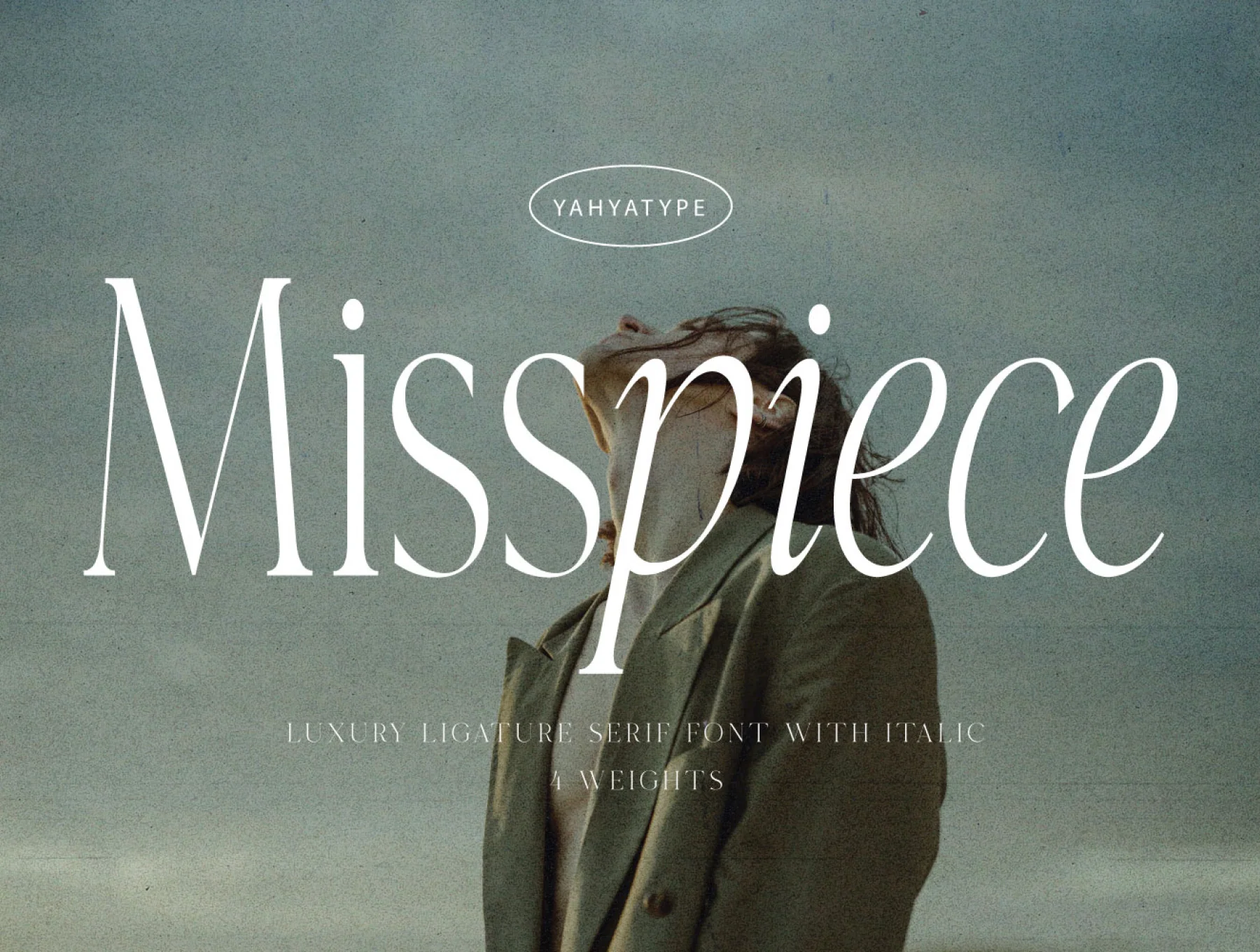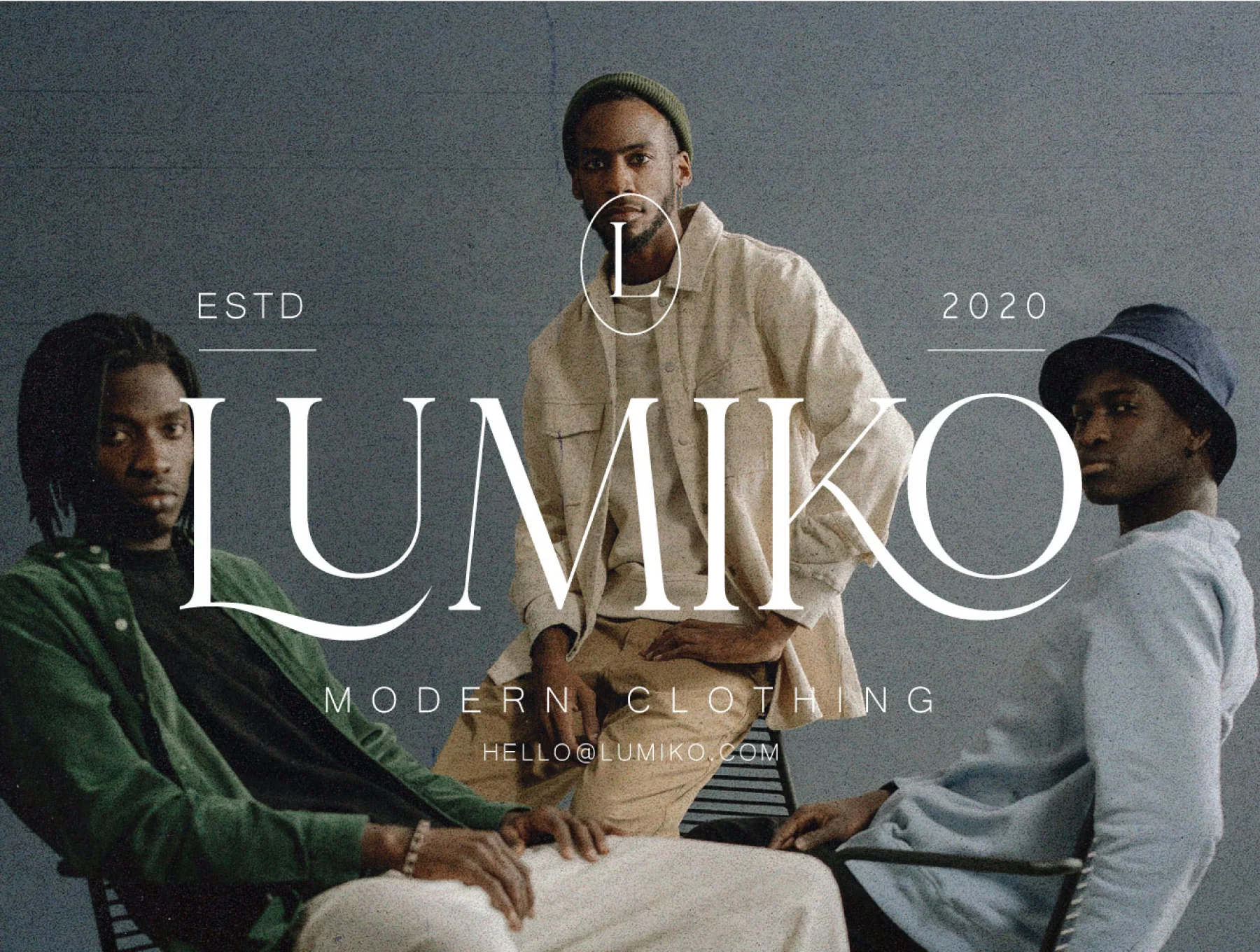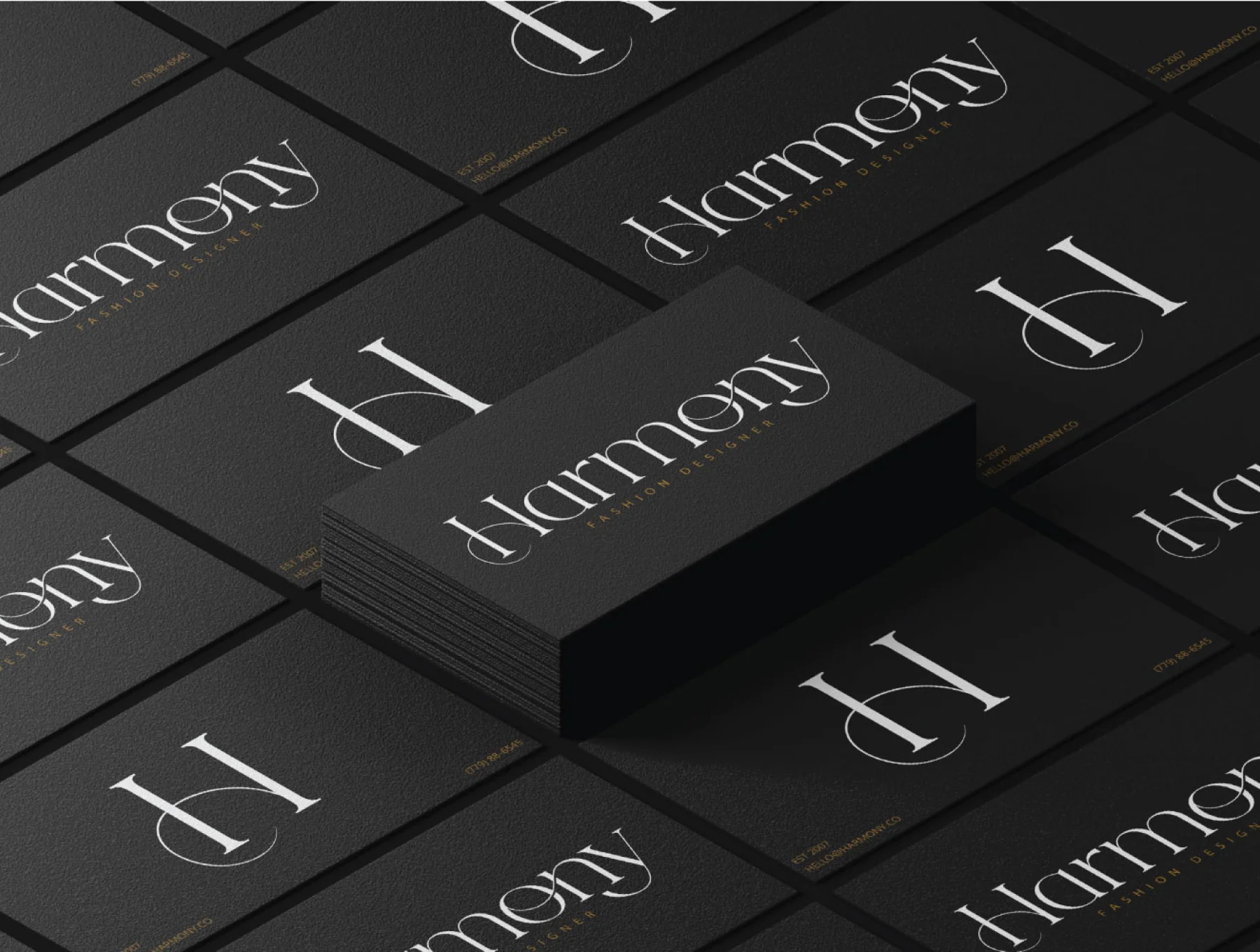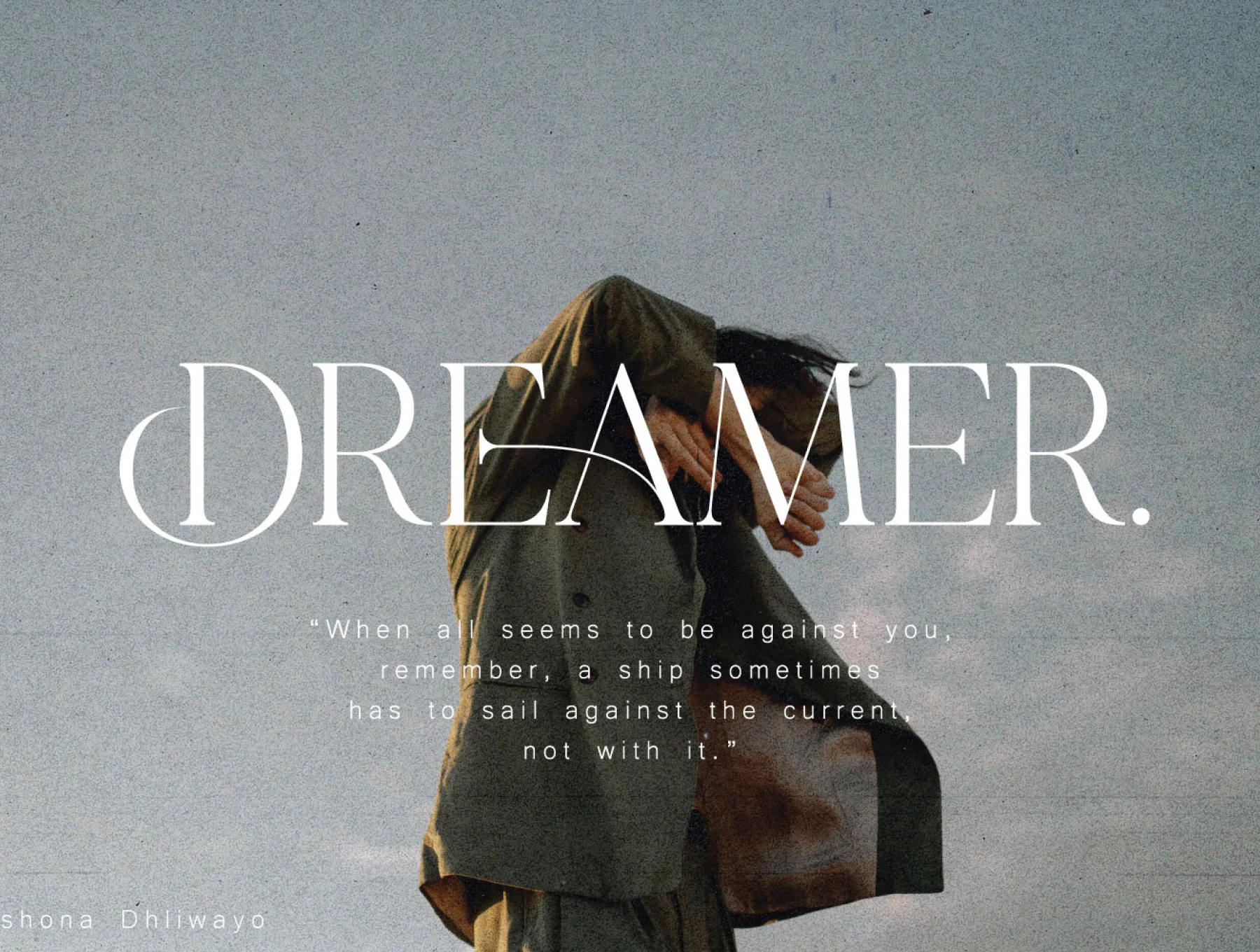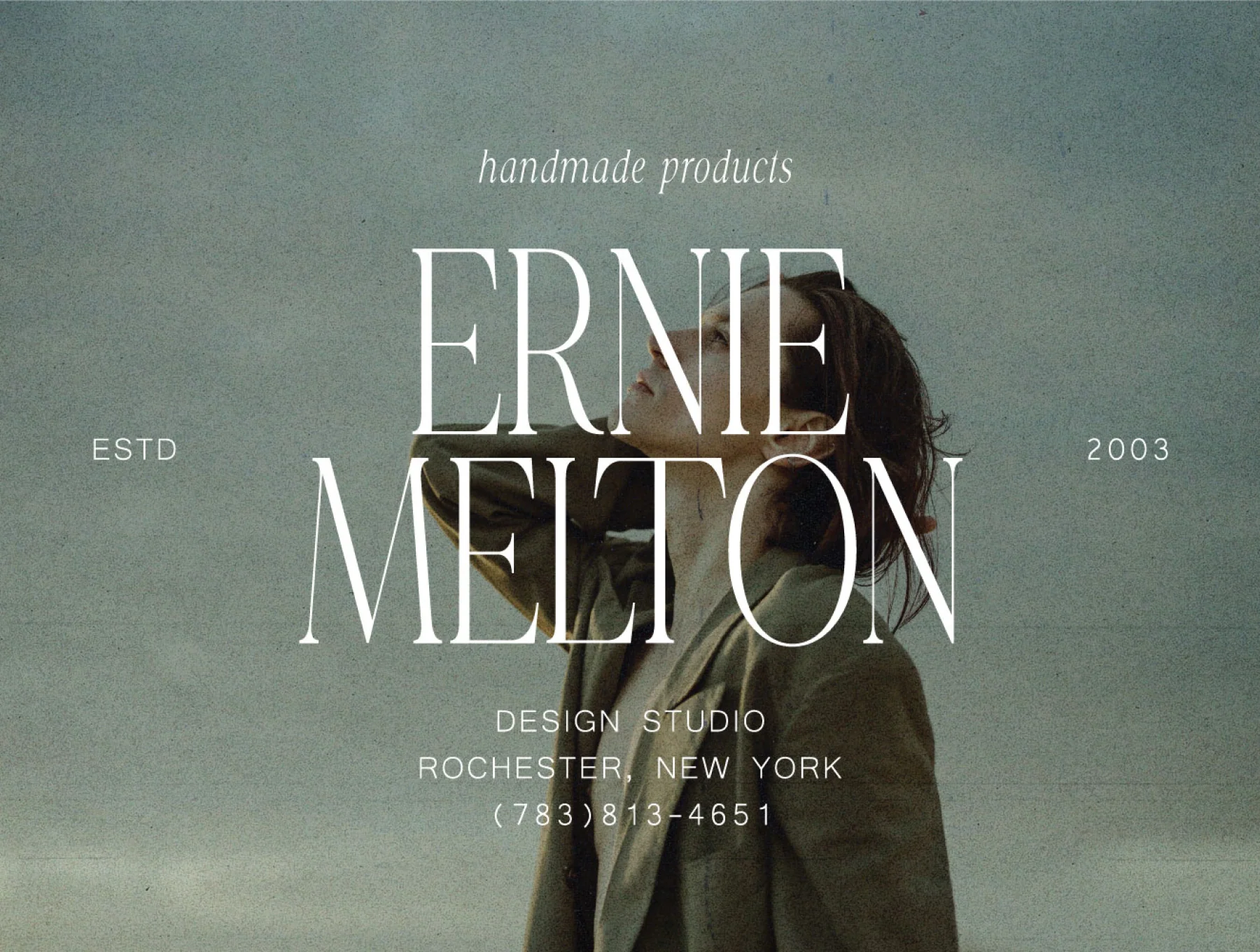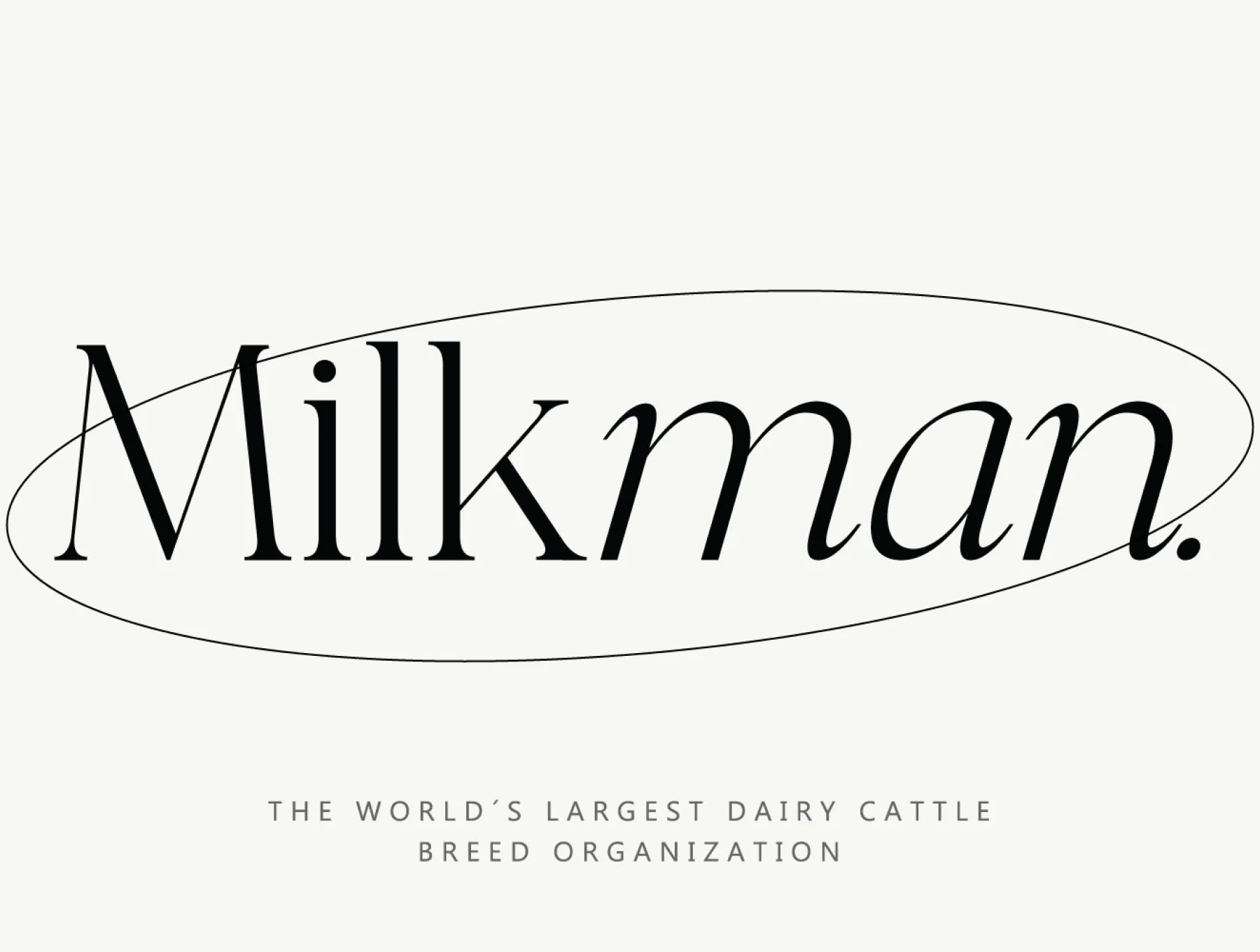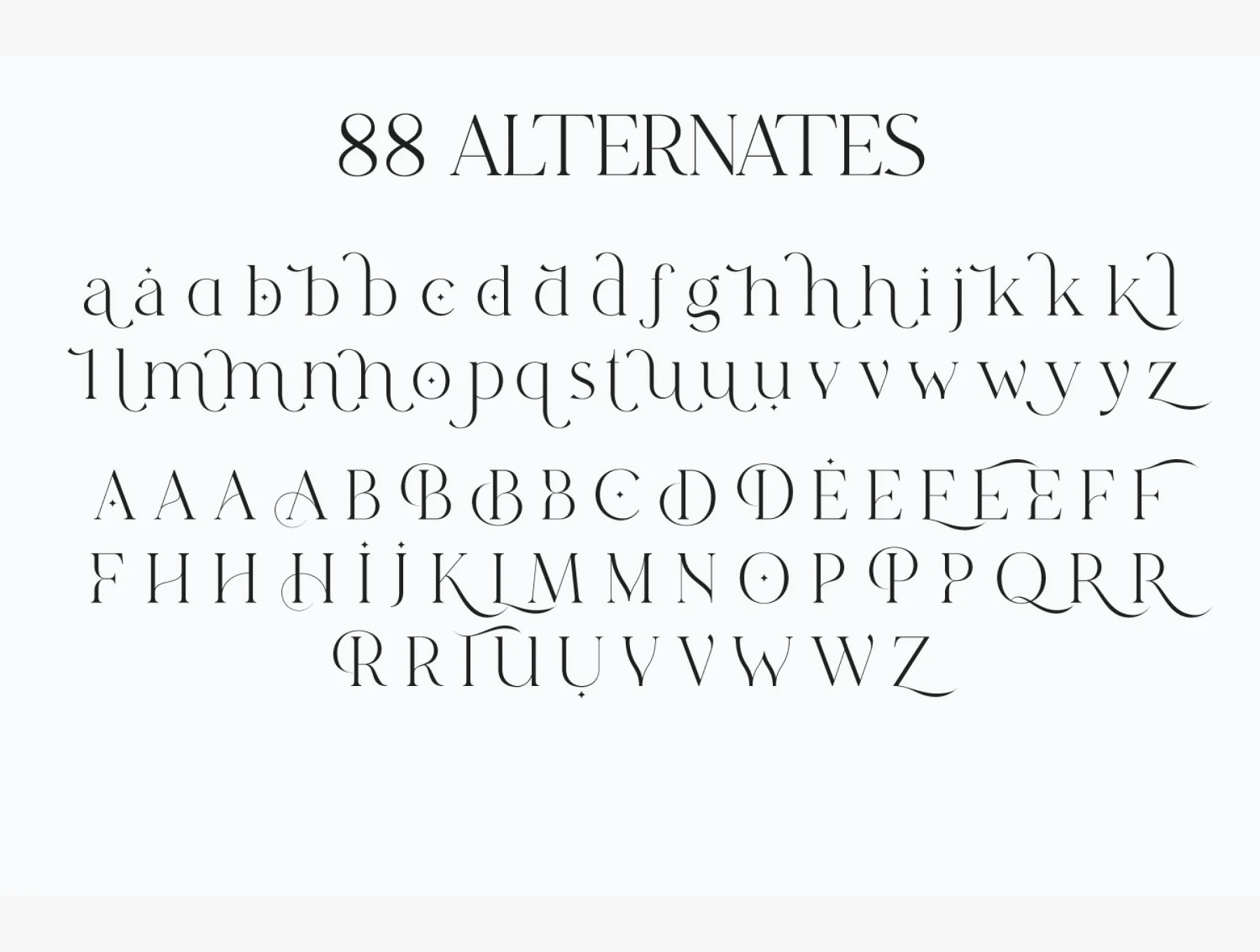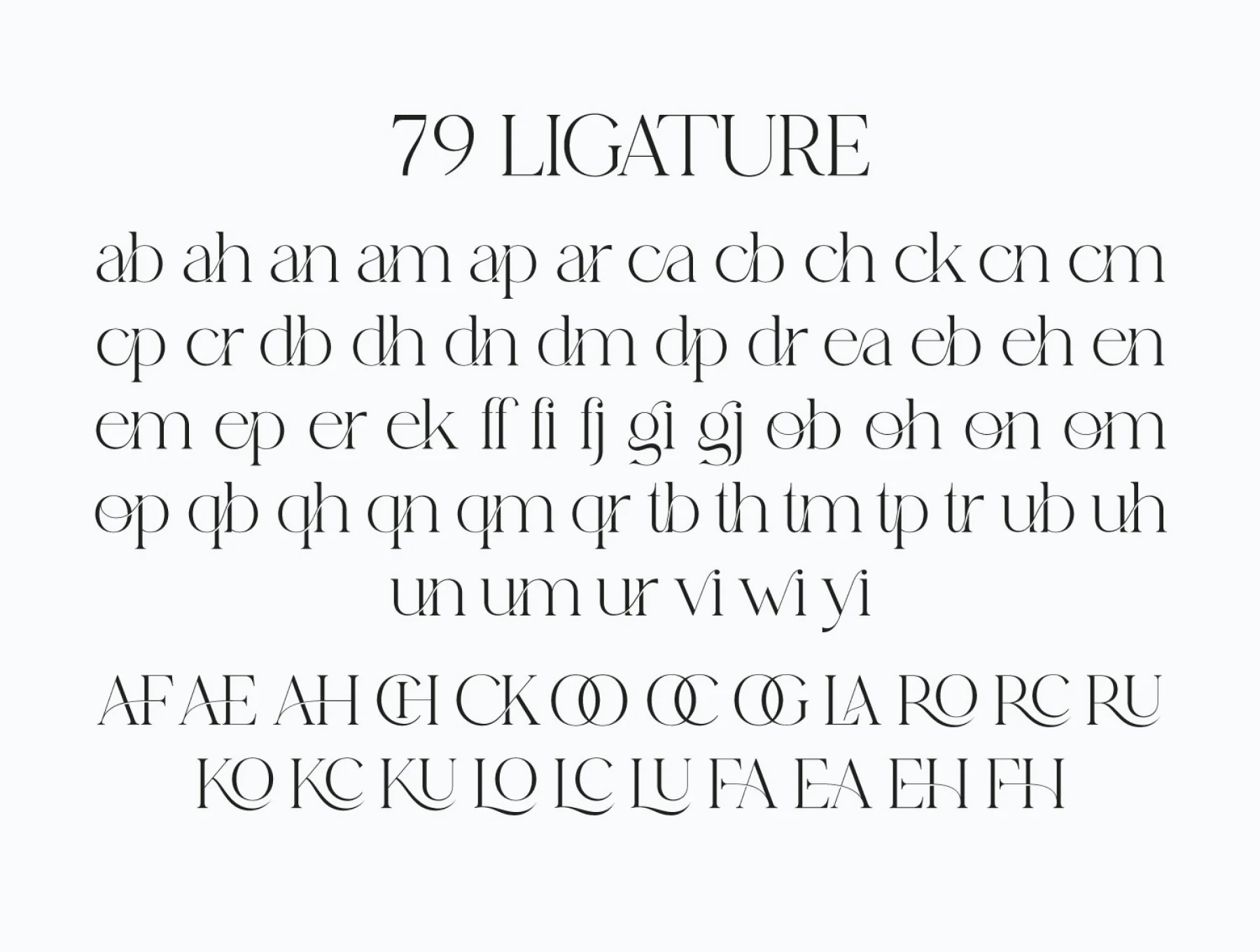
Misspiece – Stylish Modern font
Misspiece, an elegant ligature serif typeface with italic style.
Supports multiple languages
Numerals and punctuation marks
79 ligature options and 88 alternate glyphs
Misspiece blends retro charm with contemporary style, bringing refined sophistication to your creative work. Ideal for luxury branding, logos, editorial layouts, packaging, invitations, wedding stationery, social posts, ads, labels, photography signatures, and watermarks.